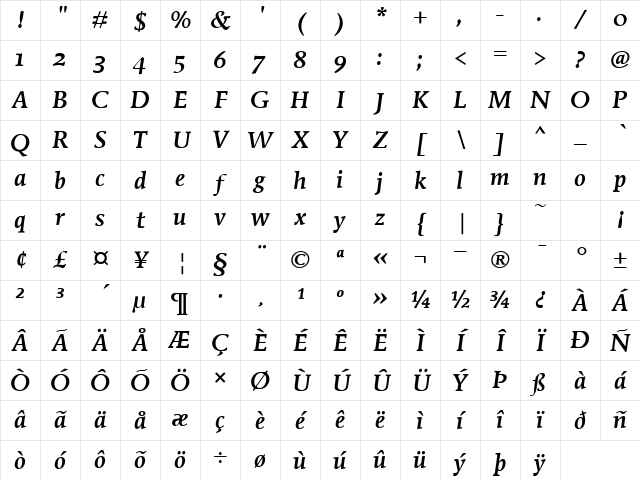
MendozaITCMediumOS RomanItalic
MendozaITCMediumOS Family
MendozaITCMediumOS RomanItalic
Design Context for MendozaITCMediumOS
MendozaITCMediumOS is a composed and adaptable typeface that performs quietly and consistently across a wide range of design contexts. The slanted form adds forward momentum and visual energy.
Pro Tip: Use MendozaITCMediumOS for emphasis, pull quotes, and subheadings where its slanted energy can add rhythm to the layout.